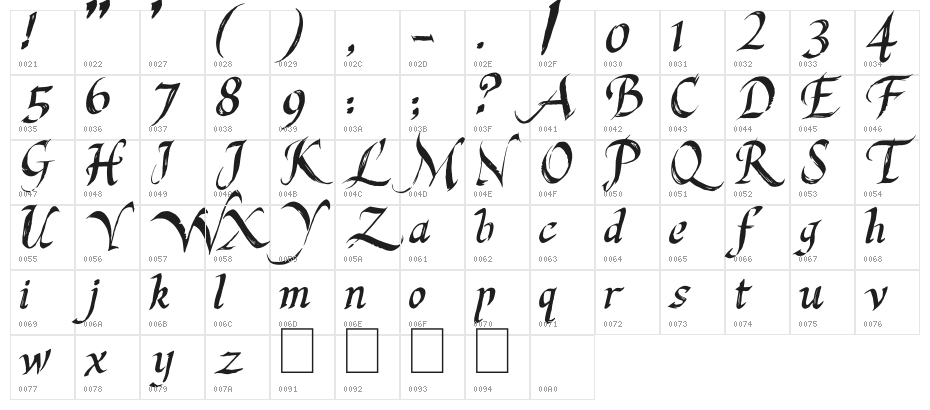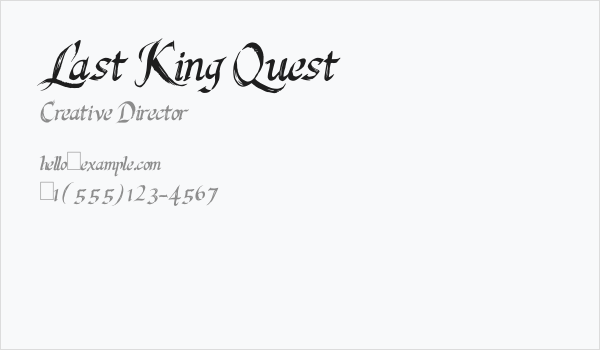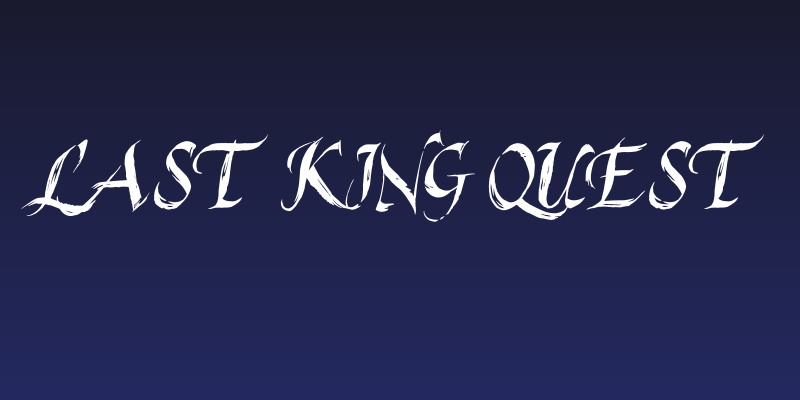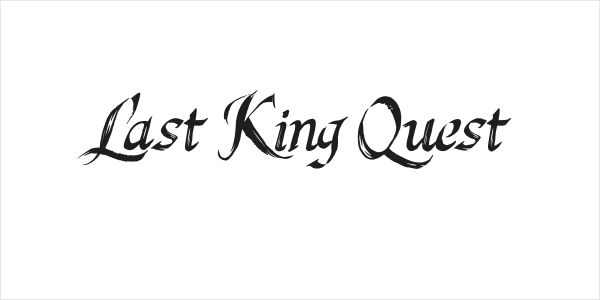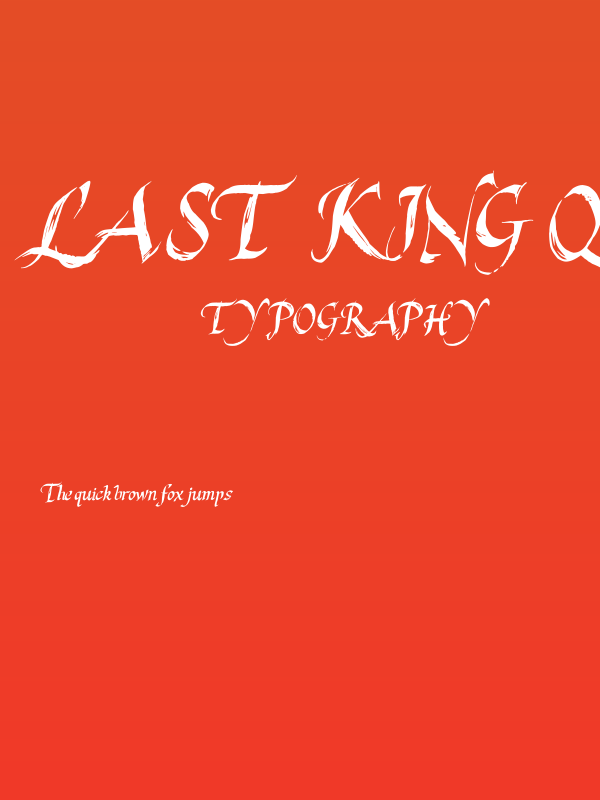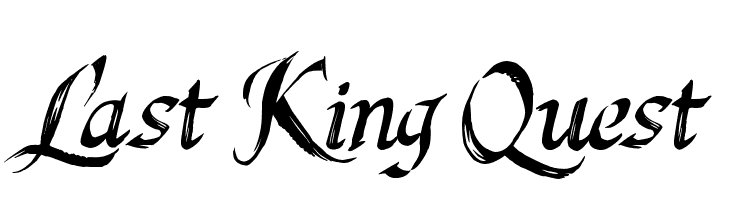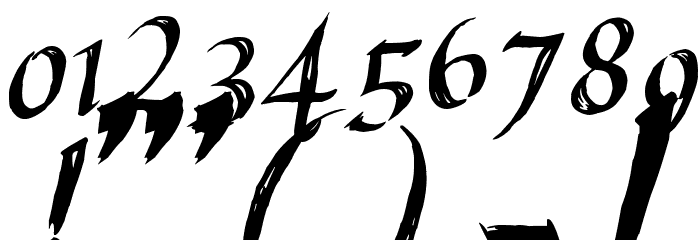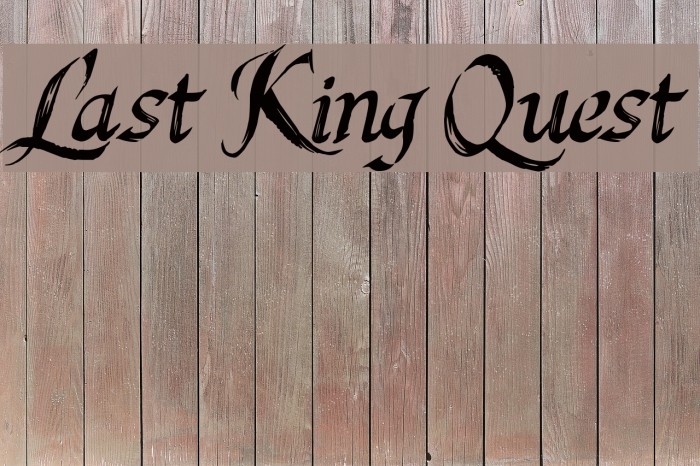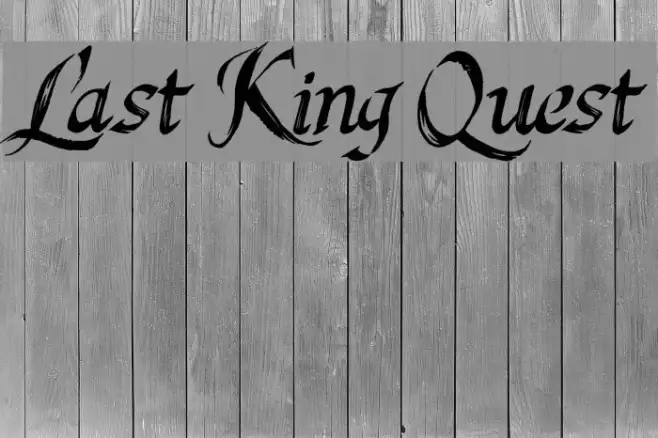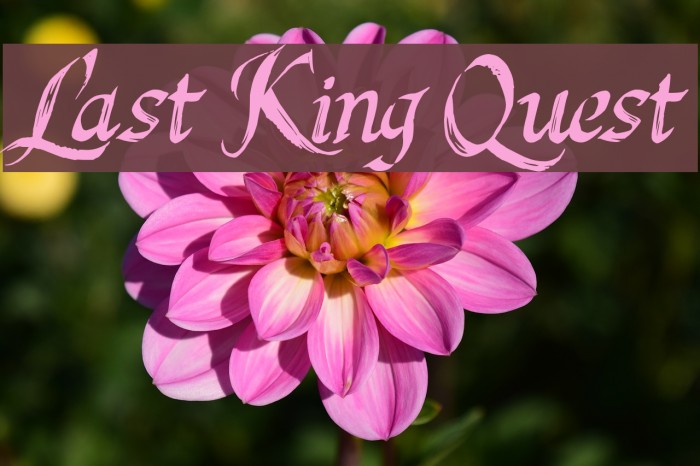
Last King Quest Font
Last King Quest Description
This font features a dramatic and expressive style, characterized by its sharp, angular strokes and dynamic flow. The uppercase letters exhibit a sense of grandeur and movement, with sweeping curves and pointed edges that evoke a sense of elegance and power. The lowercase letters maintain this fluidity, offering a harmonious blend of thick and thin strokes that enhance readability while maintaining an artistic flair. The numerals are bold and distinctive, with unique shapes that stand out. Special characters follow the same stylistic cues, adding a cohesive look to the overall design.
| Proposed Projects | Ideal for projects that require a bold, artistic touch such as branding, posters, and invitations. |